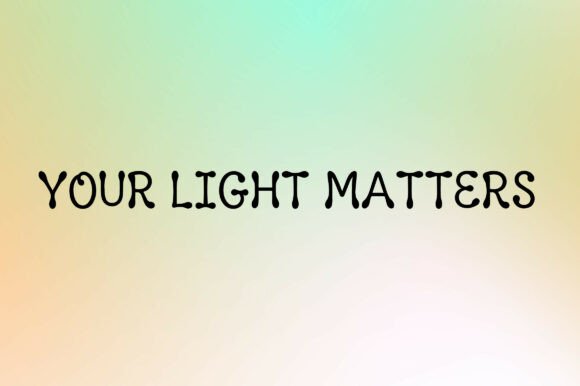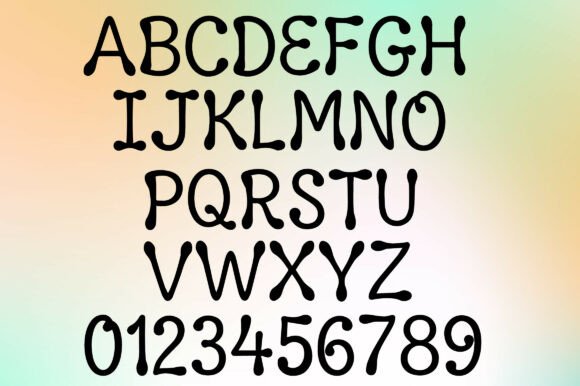
Be Radiant Font: Spread Light and Positivity with this Whimsical Retro Display Font
Are you looking for a font that can add a touch of warmth and friendliness to your designs? Look no further than Be Radiant, a playful display font that’s perfect for spreading light and positivity. With its soft, “bubbly” rhythm and retro-modern charm, Be Radiant is sure to capture the hearts of designers and crafters alike.
A Font that Captures Joy and Approachability
Be Radiant is a font that’s all about joy and approachability. Its fluid, rounded forms and unique flared terminals give it a hand-drawn energy that’s both stylish and inviting. Whether you’re working on a lifestyle branding project, nursery decor, organic food packaging, or whimsical greeting cards, Be Radiant is the perfect choice. Its versatile weight makes it easy to use in a variety of contexts, and its friendly vibe is sure to resonate with your audience.
The Characteristics of Be Radiant
So what makes Be Radiant so special? Here are just a few of its key characteristics:
• Soft, “bubbly” rhythm: Be Radiant has a playful, energetic feel that’s perfect for designs that need to feel lively and engaging.
• Retro-modern charm: This font has a distinctly retro vibe, but with a modern twist that makes it feel fresh and contemporary.
• Fluid, rounded forms: Be Radiant’s rounded forms give it a friendly, approachable feel that’s perfect for designs that need to feel warm and inviting.
• Unique flared terminals: The flared terminals on Be Radiant add a touch of elegance and sophistication, making it perfect for designs that need to feel stylish and refined.
Be Radiant is a versatile font that can be used in a wide range of projects, including:
• Lifestyle branding: Be Radiant is perfect for lifestyle brands that want to convey a sense of warmth and friendliness.
• Nursery decor: This font is a great choice for nursery decor, adding a touch of playfulness and whimsy to any design.
• Organic food packaging: Be Radiant is a great choice for organic food packaging, conveying a sense of naturalness and wholesomeness.
• Whimsical greeting cards: This font is perfect for greeting cards that need to feel friendly and approachable.
Why Choose Be Radiant?
So why choose Be Radiant for your next design project? Here are just a few reasons:
• Unique and eye-catching: Be Radiant is a one-of-a-kind font that’s sure to grab attention and make your designs stand out.
• Easy to read: Despite its playful vibe, Be Radiant is easy to read and understand, making it perfect for designs that need to communicate a message.
• Versatile: This font can be used in a wide range of contexts, from digital designs to print materials.
• Friendly and approachable: Be Radiant has a warm and inviting vibe that’s perfect for designs that need to feel friendly and approachable.
Be Radiant is a font that’s all about spreading light and positivity. With its soft, “bubbly” rhythm and retro-modern charm, it’s the perfect choice for designers and crafters who want to add a touch of warmth and friendliness to their designs. Whether you’re working on a lifestyle branding project, nursery decor, organic food packaging, or whimsical greeting cards, Be Radiant is sure to capture the hearts of your audience. So why not give it a try and see the difference it can make in your designs?